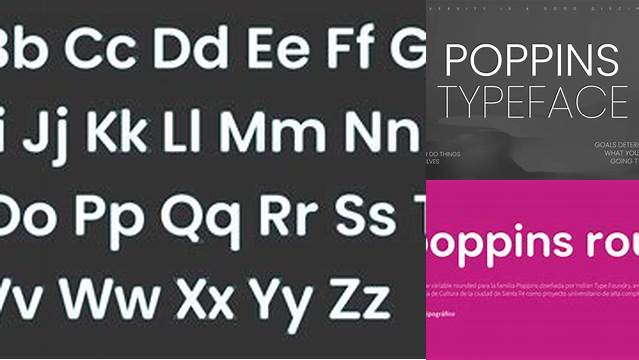
Poppins Rounded Font: Free Download Guide
Hey guys! Are you on the hunt for a font that’s both modern and friendly? Look no further! Poppins Rounded font is your answer. This amazing font family has become a favorite among designers and creatives for its clean lines, rounded terminals, and overall versatility. In this comprehensive guide, we’ll dive deep into what makes Poppins Rounded so special, where you can find free downloads, and how to make the most of it in your projects. So, let’s get started!
Poppins Rounded isn't just another font; it's a carefully crafted typeface designed to bring a touch of warmth and approachability to any design. Its geometric construction ensures legibility, while the rounded terminals soften the edges, making it perfect for a wide range of applications. Whether you're working on a website, a logo, a presentation, or even print materials, Poppins Rounded can seamlessly adapt to your needs. The beauty of this font lies in its simplicity and versatility. It’s clean enough to be used for professional documents, yet friendly enough to be used for creative projects. This balance makes it an excellent choice for brands aiming to convey both competence and approachability. When you choose Poppins Rounded, you’re not just choosing a font; you’re choosing a design element that communicates clarity and warmth. Think about the impact a well-chosen font can have on your brand’s message. It’s not just about the words you use, but how those words look. A font like Poppins Rounded can elevate your design, making it more engaging and memorable. It’s the small details that often make the biggest difference, and your choice of font is undoubtedly one of those details. So, whether you're designing a website, creating marketing materials, or crafting a personal project, give Poppins Rounded a try and see how it can transform your work. You might just find that it becomes your new go-to font.
What Makes Poppins Rounded So Popular?
Let's talk about why Poppins Rounded has captured the hearts of designers worldwide. First off, its clean and modern design is super appealing. The rounded edges give it a softer, more approachable vibe compared to fonts with sharp corners. This makes it incredibly versatile – perfect for everything from professional websites to fun, creative projects. But what really sets Poppins Rounded apart is its readability. The geometric structure ensures that each letter is clear and distinct, making it a fantastic choice for body text as well as headings. This is crucial because a beautiful font is useless if your audience can't easily read it. Think about browsing a website or reading a document where the font is difficult to decipher. It's frustrating, right? Poppins Rounded avoids this problem by prioritizing clarity without sacrificing style. This font isn’t just visually appealing; it’s practical. Its legibility means that your message will be communicated effectively, whether it’s on a screen or in print. Plus, the rounded terminals add a touch of friendliness, making your content feel more inviting. This is especially important in branding, where you want to create a connection with your audience. A font like Poppins Rounded can help you achieve that by making your brand feel more approachable and human. It’s a subtle but powerful way to influence perception and build trust. So, if you’re looking for a font that combines style, readability, and versatility, Poppins Rounded is definitely worth considering. It's a font that works hard for you, ensuring that your message is not only seen but also understood and appreciated.
Another reason for its popularity is the variety of weights available. Poppins Rounded typically comes in a range of weights, from thin to extra-bold, giving you plenty of options to play with. This is incredibly useful for creating visual hierarchy in your designs. You can use a heavier weight for headings to make them stand out, and a lighter weight for body text to ensure readability. This kind of flexibility is a designer’s dream because it allows you to create a consistent and polished look across your entire project. Imagine you’re designing a website. You might use a bold weight of Poppins Rounded for the main headlines, a semi-bold weight for subheadings, and a regular weight for the body text. This creates a clear visual structure that guides the reader through the content. The different weights also allow you to add emphasis to certain words or phrases, drawing the reader’s attention to the most important information. And it’s not just about websites. This same principle applies to print materials, presentations, and any other design project you can think of. The versatility of Poppins Rounded means that you can use it in a wide range of contexts, making it a valuable addition to your font library. So, whether you’re a seasoned designer or just starting out, exploring the different weights of Poppins Rounded can help you create more impactful and professional-looking designs. It’s a font that grows with you, offering endless possibilities for creative expression.
How to Use Poppins Rounded in Your Designs
So, you’ve got Poppins Rounded downloaded and ready to go. Now what? Let’s explore how you can effectively use this font in your designs. One of the best things about Poppins Rounded is its versatility. It works wonderfully for both headings and body text. For headings, its clean, bold forms can make a strong statement. Imagine using it for website headers or in print materials to grab attention. The rounded edges add a touch of friendliness, making your message feel approachable and inviting. But it’s not just about making a statement; it’s also about readability. Poppins Rounded excels in this area, ensuring that your headings are not only eye-catching but also easy to read. This is crucial because you want your audience to understand your message quickly and easily. A well-chosen heading font can guide the reader’s eye and create a clear hierarchy on the page. Poppins Rounded does this beautifully, making it a great choice for any project where you need to communicate effectively. Think about how you can use different weights and sizes of Poppins Rounded to create visual interest and emphasize key information. A larger, bolder heading will naturally draw the eye, while a smaller, lighter subheading can provide context and support. By playing with these elements, you can create a dynamic and engaging layout that keeps your audience interested and informed. So, whether you’re designing a website, creating a presentation, or working on print materials, consider using Poppins Rounded for your headings. Its clean lines, friendly feel, and excellent readability make it a winning choice for any design project.
For body text, its clear and legible letterforms ensure a comfortable reading experience. This is super important because you want your audience to be able to read your content without straining their eyes. Think about how frustrating it is to read a long article or document with a font that’s difficult to decipher. Poppins Rounded avoids this problem by prioritizing clarity. Its geometric structure ensures that each letter is distinct and easy to recognize, even at smaller sizes. This makes it a great choice for websites, blogs, and any other medium where you have a lot of text to present. But it’s not just about legibility; it’s also about creating a pleasant reading experience. The rounded terminals of Poppins Rounded add a touch of softness, making the text feel less harsh and more inviting. This can make a big difference in how your audience perceives your content. A font that’s easy on the eyes can help keep readers engaged and encourage them to spend more time with your message. So, when you’re choosing a font for your body text, remember that clarity and comfort are key. Poppins Rounded excels in both areas, making it a fantastic choice for any project where you want to communicate effectively and keep your audience engaged. Whether you’re writing a blog post, designing a website, or creating a report, Poppins Rounded can help you deliver your message with clarity and style.
Pairing Poppins Rounded with other fonts can also create interesting visual contrasts. For a classic look, try pairing it with a serif font like Playfair Display for headings. For a more modern feel, stick with sans-serif fonts like Montserrat or Lato. Experimenting with different font combinations is part of the fun of design, and Poppins Rounded is versatile enough to work well with a wide range of other typefaces. Think of font pairing as creating a conversation between two different voices. You want them to complement each other and create a harmonious whole. A serif font, with its traditional serifs and elegant curves, can bring a touch of sophistication to your design. Pairing it with Poppins Rounded, which is clean and modern, creates a balanced and visually appealing contrast. On the other hand, pairing Poppins Rounded with another sans-serif font can create a more cohesive and contemporary feel. Fonts like Montserrat and Lato share similar characteristics with Poppins Rounded, so they blend seamlessly together. This can be a great option if you want to create a consistent look across your design. But don’t be afraid to experiment and break the rules! Sometimes the most unexpected font pairings can create the most striking results. The key is to find combinations that work well together and enhance your overall design. So, grab your favorite design software, start playing around with different fonts, and see what you can create. With a little practice, you’ll be a font pairing pro in no time.
In conclusion, Poppins Rounded font is a fantastic choice for anyone looking for a modern, versatile, and readable typeface. Its clean design and rounded edges make it perfect for a wide range of projects, and the fact that it’s often available for free download is a huge bonus. So, go ahead and give it a try – you might just find your new favorite font! Remember, the right font can make all the difference in your designs, so choosing wisely is key. Poppins Rounded offers a unique blend of clarity, friendliness, and versatility, making it a valuable asset for any designer or creative professional. Whether you’re working on a website, a logo, a presentation, or any other project, this font can help you communicate your message effectively and create a lasting impression. So, take advantage of the free download options available and start exploring the possibilities. Experiment with different weights, sizes, and pairings to see how Poppins Rounded can enhance your work. With its clean lines, rounded terminals, and overall appeal, this font is sure to become a staple in your design toolkit. Happy designing, guys!